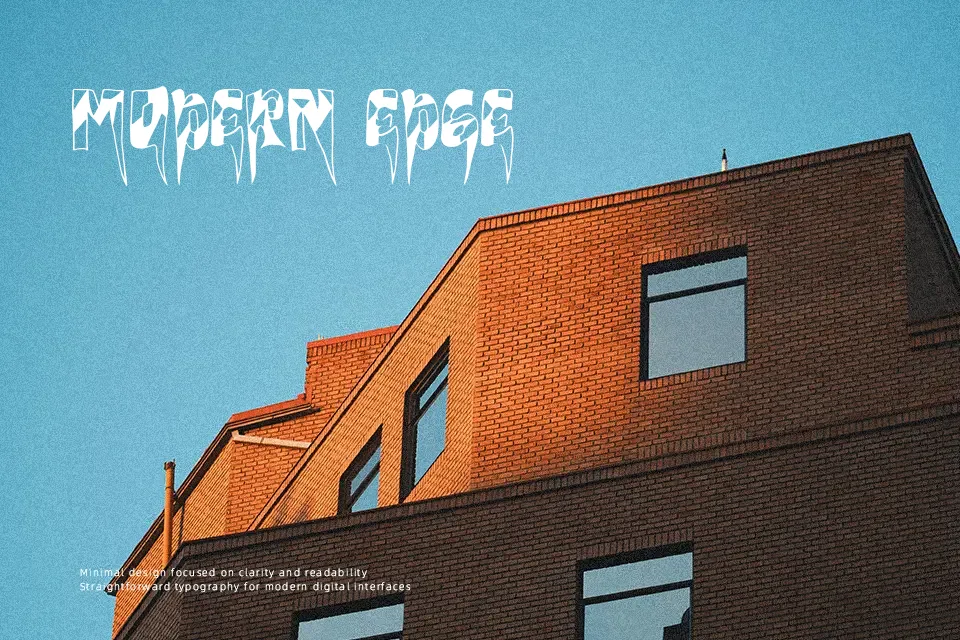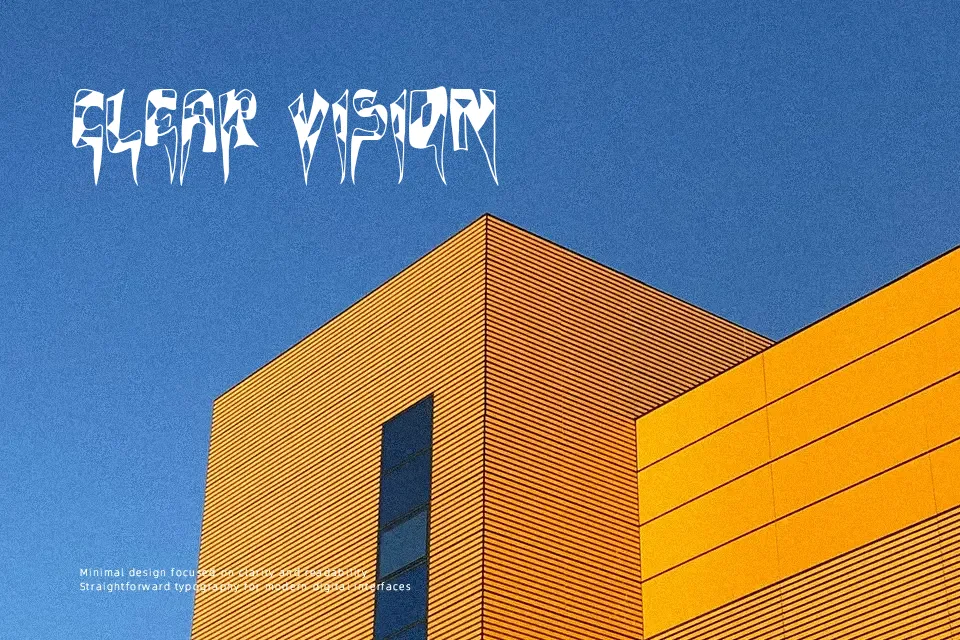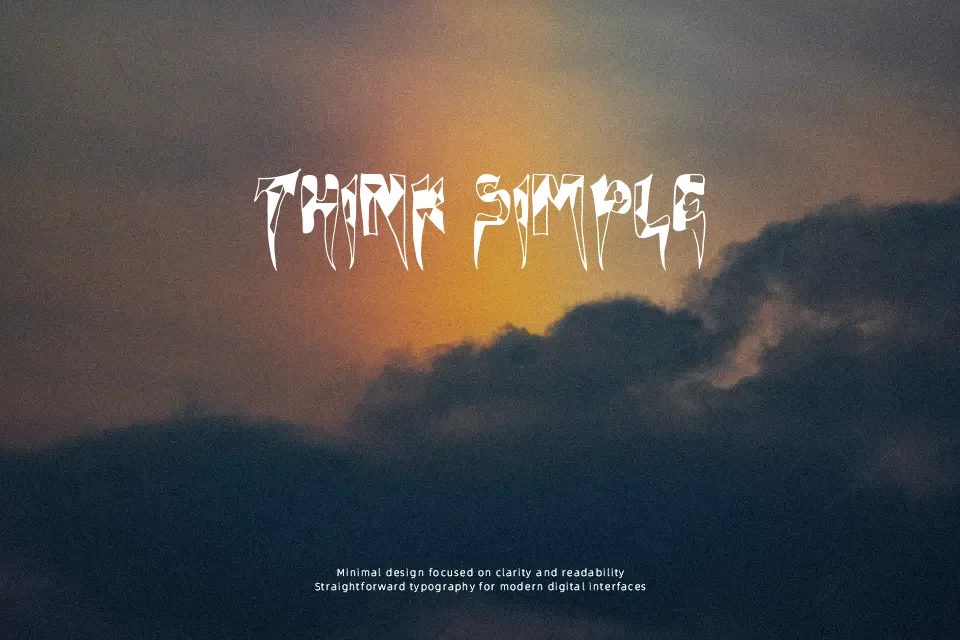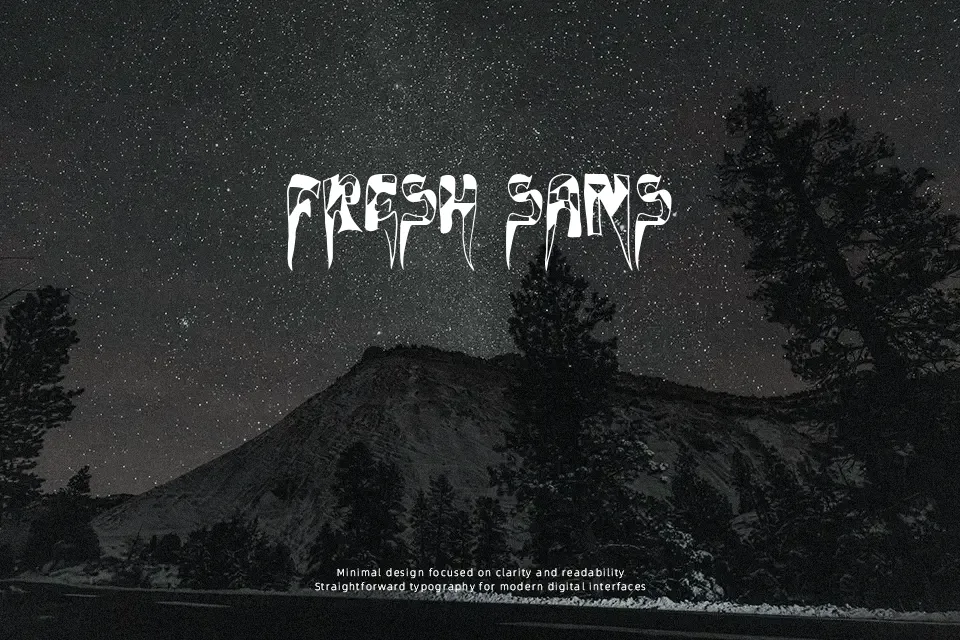
Rocketz Font
Designed by Ditya Ananto
Rocketz Font delivers strong legibility in short, high-impact display environments. The heavy letterforms create a powerful visual rhythm that captures immediate attention. Designed with compact spacing and robust proportions, the typeface excels in large-scale applications where immediate recognition is essential. This solid construction makes it highly suitable for modern esports graphics, urban apparel branding, and energetic event signage. While the thick structure improves visibility in prominent headers, these dense forms reduce comfort during continuous reading. Small interface menus and long paragraphs will lose clarity, as the decorative details become less effective at reduced dimensions.
Best For: gaming team logos, modern festival posters, streetwear apparel graphics, bold website hero headlines
Not Ideal For: dense editorial layouts, long paragraph text, small interface labels, corporate reports
Perfect for branding, gaming, and headline, with a bold and decorative style.